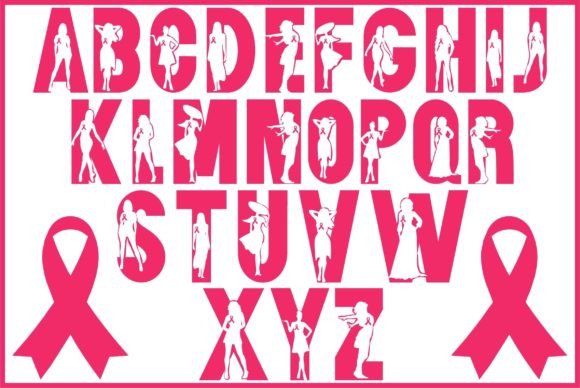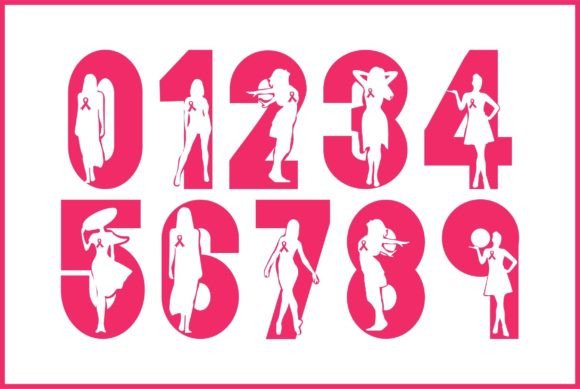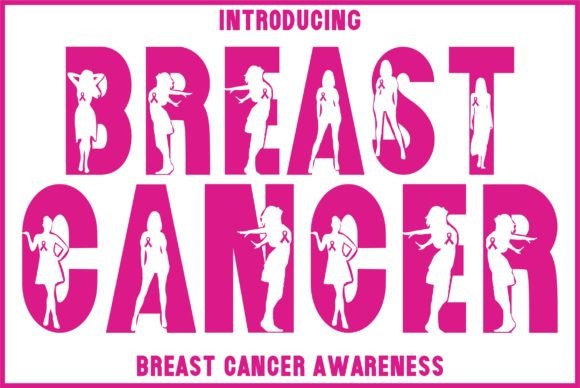
Breast Cancer Font: A Unique Decorative Font for Awareness Projects
Breast cancer awareness is an essential cause that has been garnering attention globally, and designers and crafters play a vital role in creating visual content that supports this cause. When it comes to designing materials for breast cancer awareness projects, choosing the right font can make a significant difference. This is where the Breast Cancer Font comes in – a thick-lettered and unique decorative font designed specifically for breast cancer awareness projects.
What is Breast Cancer Font?
The Breast Cancer Font is a distinctive and eye-catching font that is perfect for creating visually appealing materials for breast cancer awareness campaigns. Its thick and bold letters make it stand out, ensuring that your message gets across effectively. Whether you’re designing posters, flyers, brochures, or social media graphics, this font is guaranteed to grab attention and convey your message with impact.
Key Features of Breast Cancer Font
- Unique and Decorative: The Breast Cancer Font boasts a unique and decorative style that sets it apart from standard fonts. Its distinctive design makes it instantly recognizable and perfect for creating eye-catching materials.
- Thick-Lettered: The font’s thick letters ensure that your text stands out, making it ideal for posters, flyers, and other visual materials where you want your message to pop.
- Highly Versatile: The Breast Cancer Font is versatile and can be used for various design projects, from digital graphics to print materials.
- Easy to Read: Despite its decorative nature, the font remains easy to read, ensuring that your message is communicated effectively to your audience.
Why Use Breast Cancer Font for Your Awareness Projects?
Using the Breast Cancer Font for your awareness projects offers several advantages. Firstly, it helps create a visual identity that is instantly associated with breast cancer awareness. This can be particularly useful for campaigns and events where you want to build recognition quickly. Secondly, the font’s unique design can help your materials stand out in a crowded digital or physical space, ensuring that your message gets noticed.
How to Use Breast Cancer Font in Your Designs
Incorporating the Breast Cancer Font into your designs is straightforward. Here are a few tips to get you started:
- Pair with Complementary Fonts: For maximum impact, consider pairing the Breast Cancer Font with simpler fonts for body text. This contrast will help your headings stand out while keeping your content readable.
- Choose Vibrant Colors: Breast cancer awareness is often associated with pink and other vibrant colors. Consider using these in your designs to create a cohesive and recognizable visual identity.
- Experiment with Effects: Don’t be afraid to experiment with text effects like shadows, outlines, or gradients to further enhance the font’s appearance.
The Breast Cancer Font is a powerful tool for designers and crafters working on breast cancer awareness projects. Its unique and thick-lettered design makes it perfect for creating eye-catching materials that convey a message of support and awareness. By incorporating this font into your designs, you can help create a visual identity that resonates with your audience and supports this critical cause.
Whether you’re a professional designer or a passionate crafter, the Breast Cancer Font is an excellent addition to your toolkit. So, next time you’re working on a breast cancer awareness project, consider using this distinctive font to make your message stand out and leave a lasting impact.